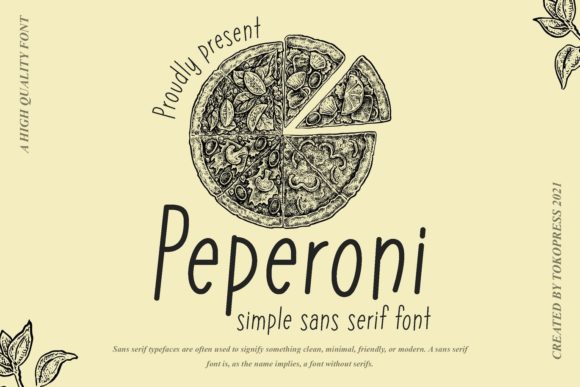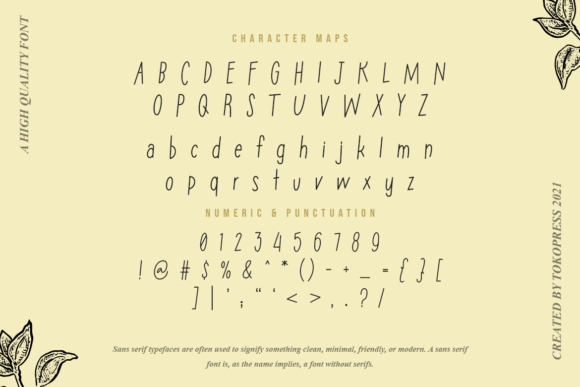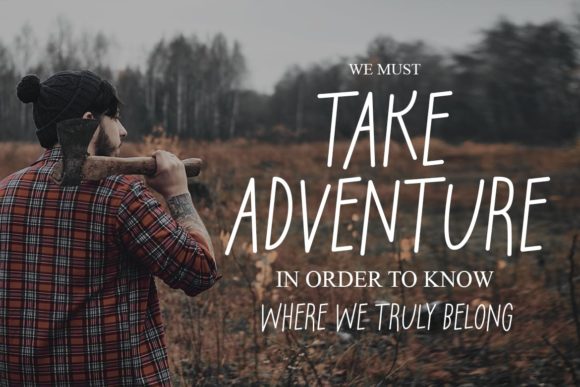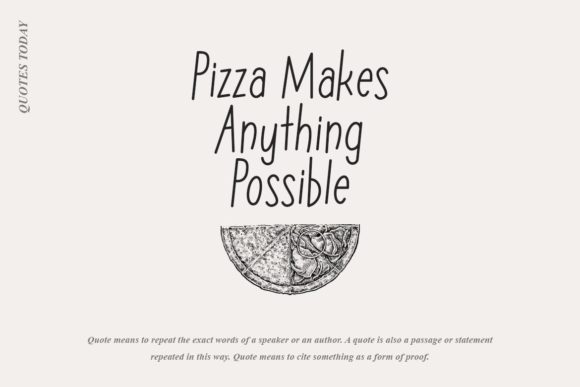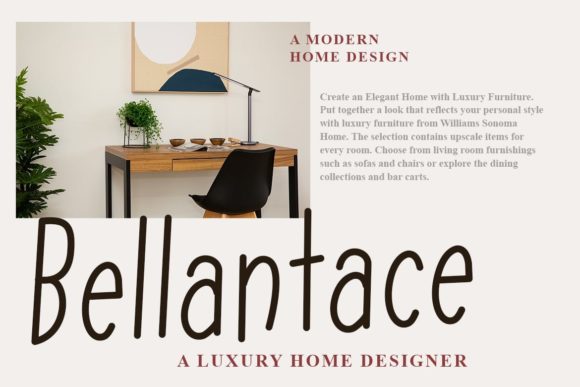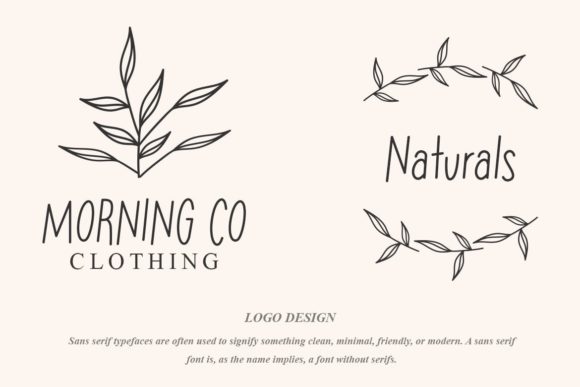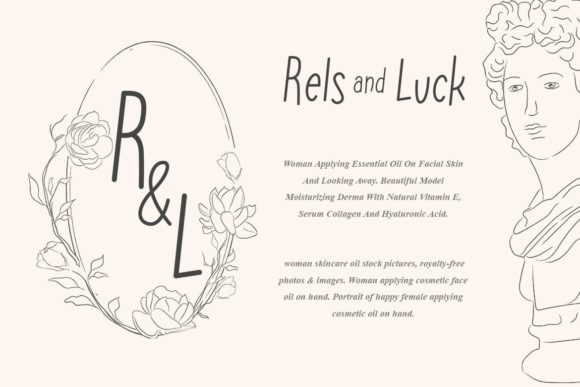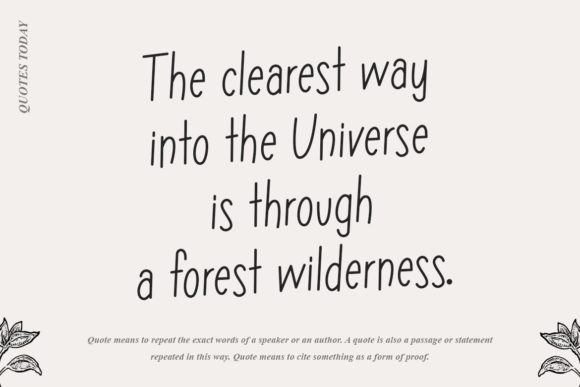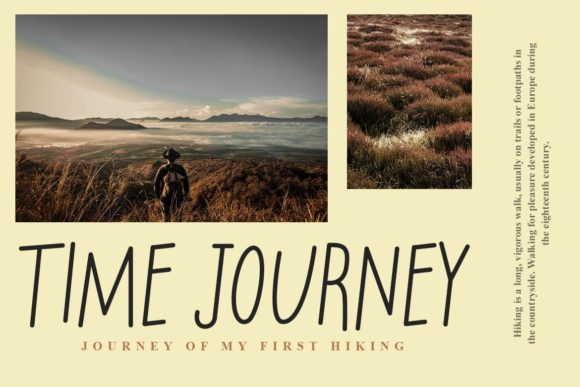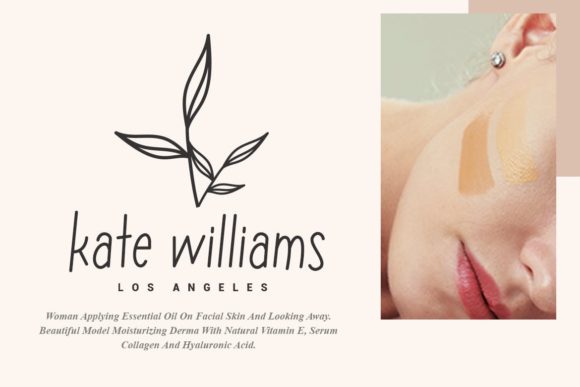
About Peperoni Font
PeperoniĀ is a cute and simple lettered handwritten font that can be used for all chalkboard quotes or teaching material! Its authentic look will add a personal and realistic feel to your designs.